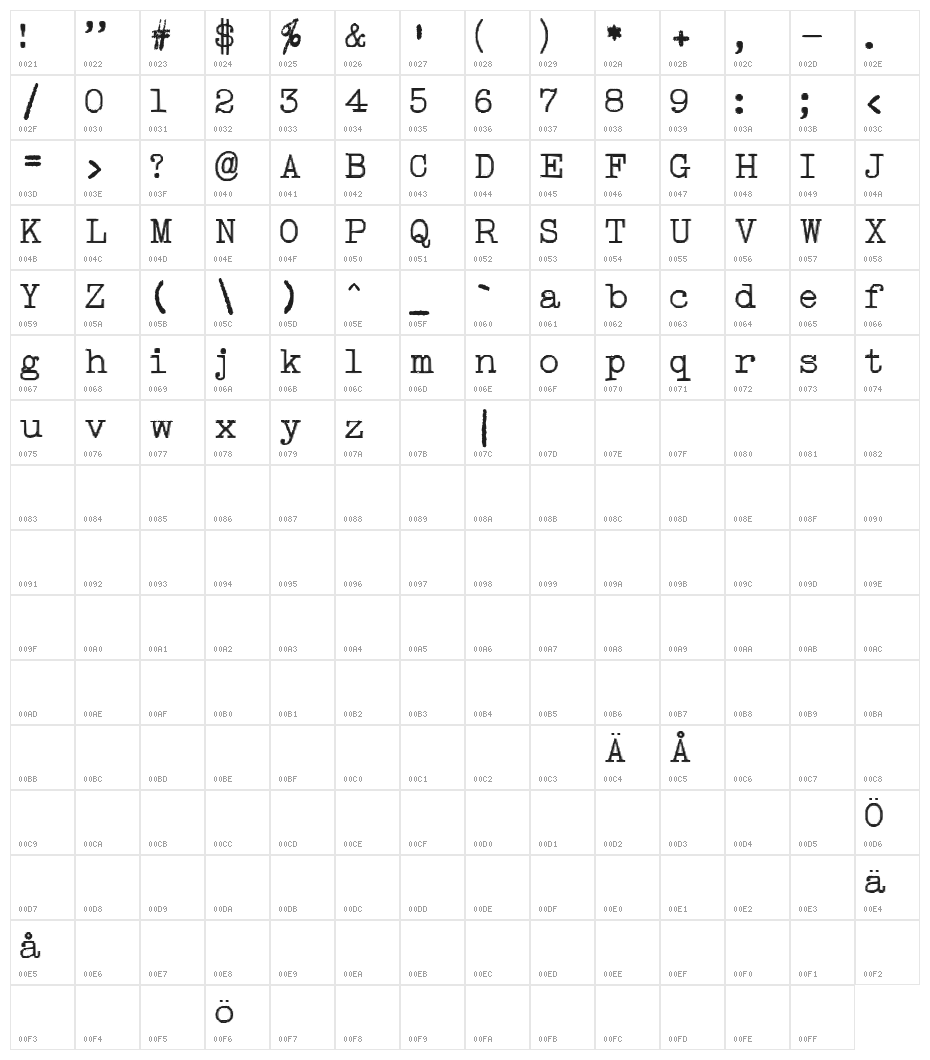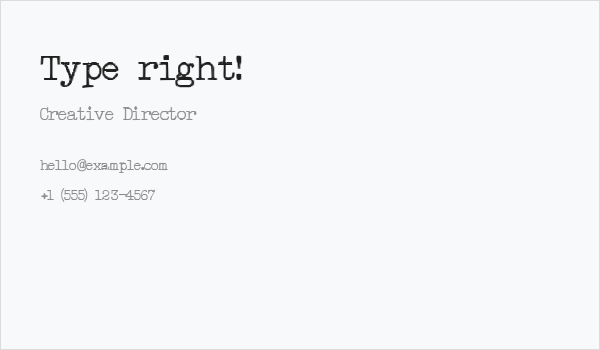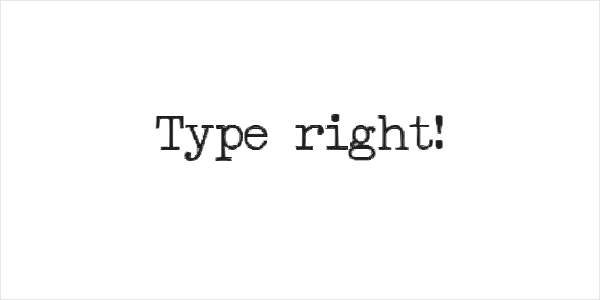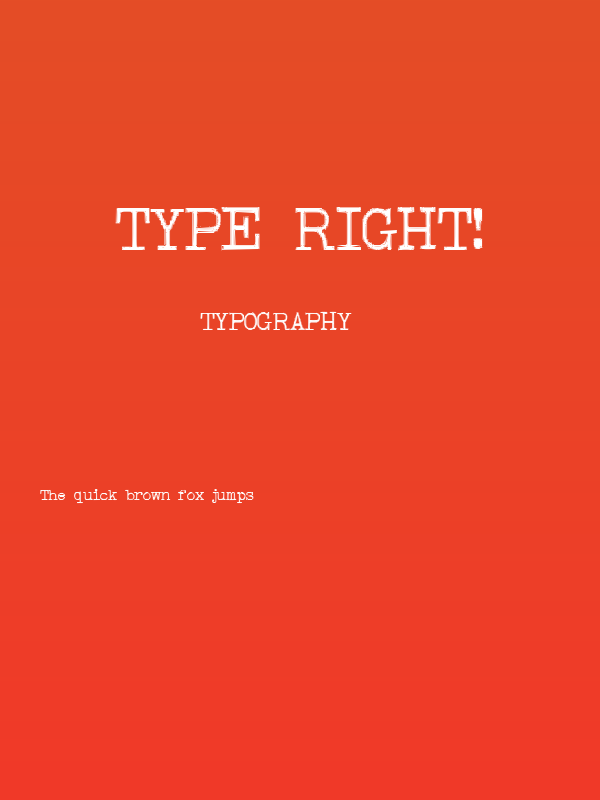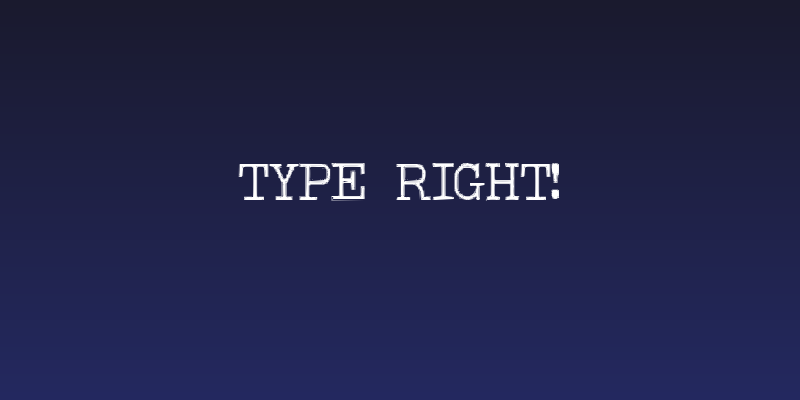
Type right! Font
Type right! Description
This font exhibits a classic typewriter style with a distinct vintage appeal. The characters are monospaced, giving each letter a uniform width, which is characteristic of traditional typewriter fonts. The letters have a slightly rough, textured appearance, adding to the retro aesthetic. The uppercase letters are bold and prominent, while the lowercase letters maintain a consistent height and width, ensuring readability. The numerals are clear and distinct, matching the style of the alphabetic characters. Special characters are included, maintaining the same textured and bold style, making them suitable for various design purposes.
TYPE-RIGHT UPPERCASE
TYPE-RIGHT LOWERCASE
TYPE-RIGHT OTHER CHARS
| Proposed Projects | Ideal for retro-themed designs, typewriter-inspired projects, vintage posters, and creative print materials. |